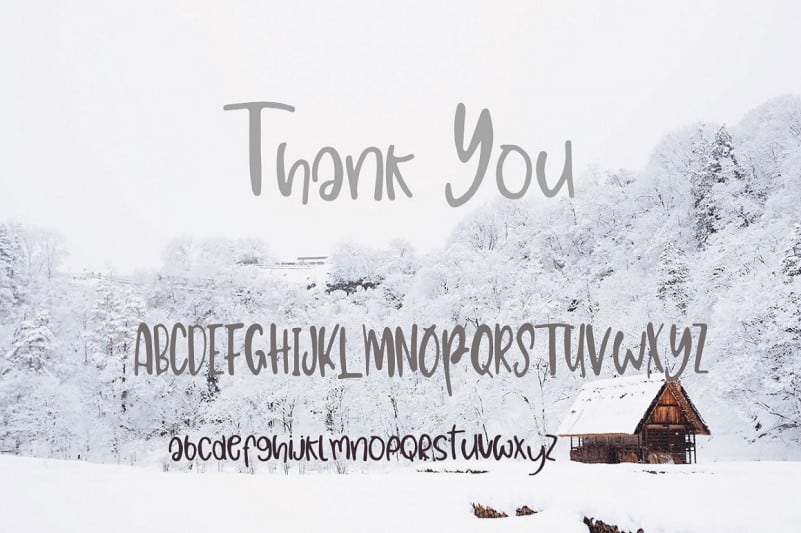
Rain Snow Brush Font
Rain Snow Brush Font is a simple and friendly display font. Its natural and unique style makes it incredibly fitting for a large pool of designs. Use this font for your designs and explore its endless possibilities.